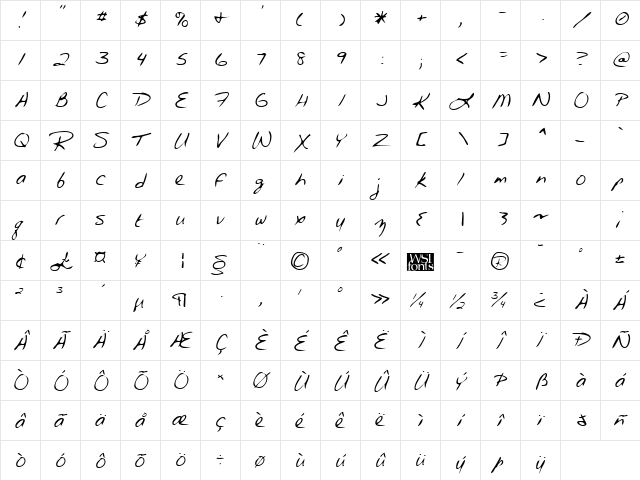
MarciesHand Regular
Design Context for MarciesHand Typeface
MarciesHand flows with the natural rhythm of handwritten lettering, making it ideal for designs that call for warmth and personal expression.
Font Pairing: Combine MarciesHand with a simple geometric sans for maximum contrast — the tension between flowing curves and clean structure is a classic typographic pairing.
Pro Tip: Use MarciesHand for short runs of text — names, titles, or taglines. Extended body copy in script faces tires the eye quickly.